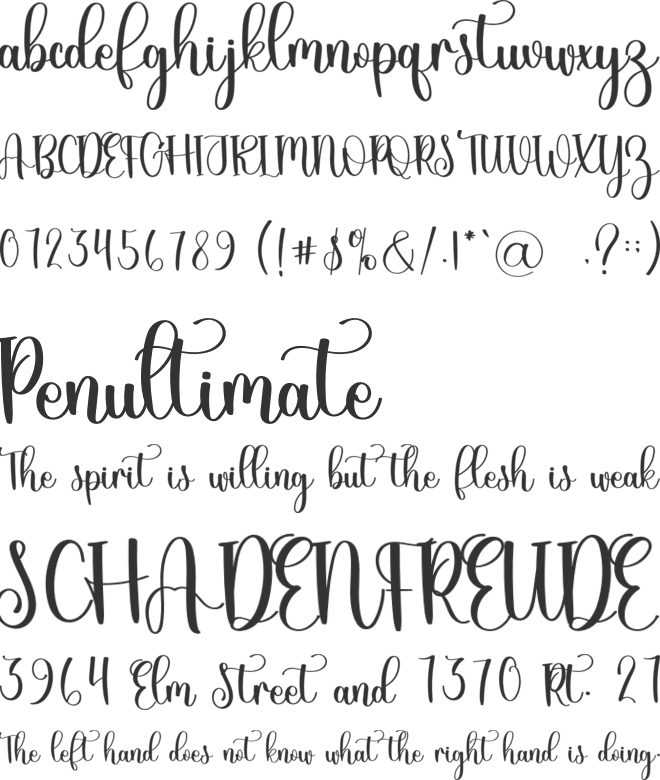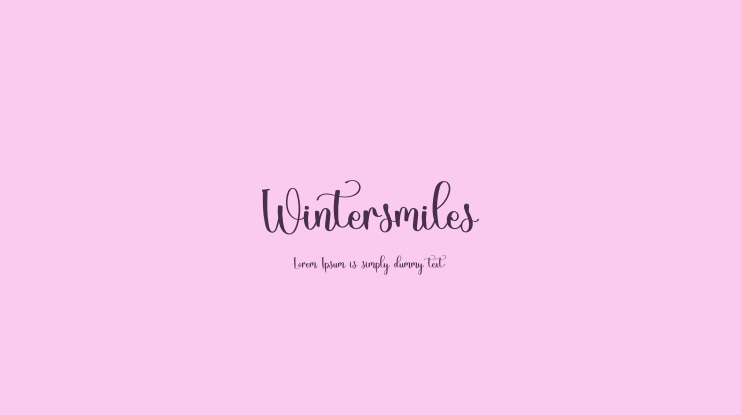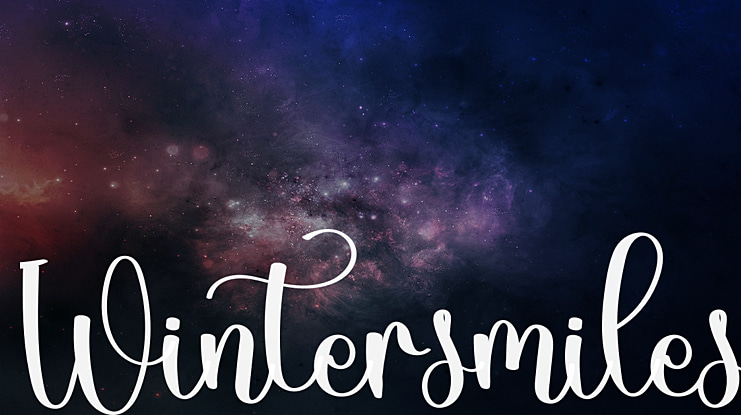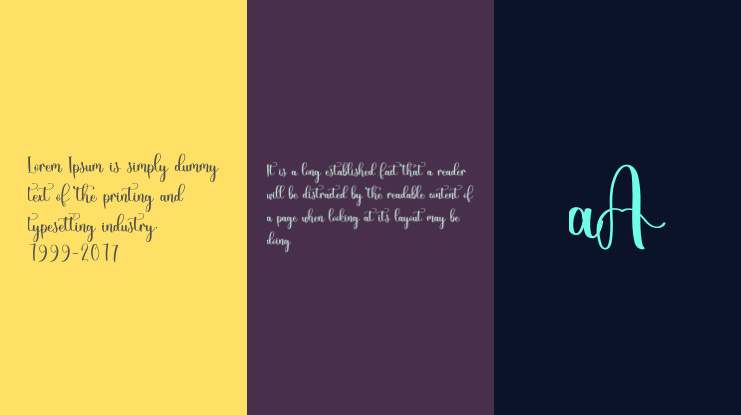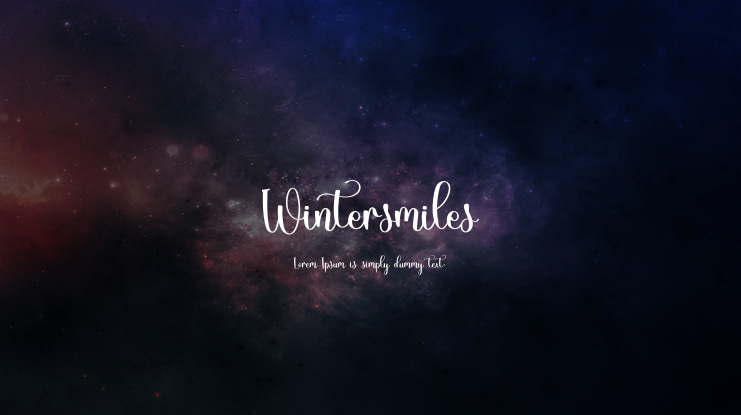
Wintersmiles Font
This is a relaxed and beautiful paint brush handwritten font. It can be used for various purposes such as logos, wedding invitations, headings, t-shirts, letterhead, signage, labels, news, posters, badges and so much more.